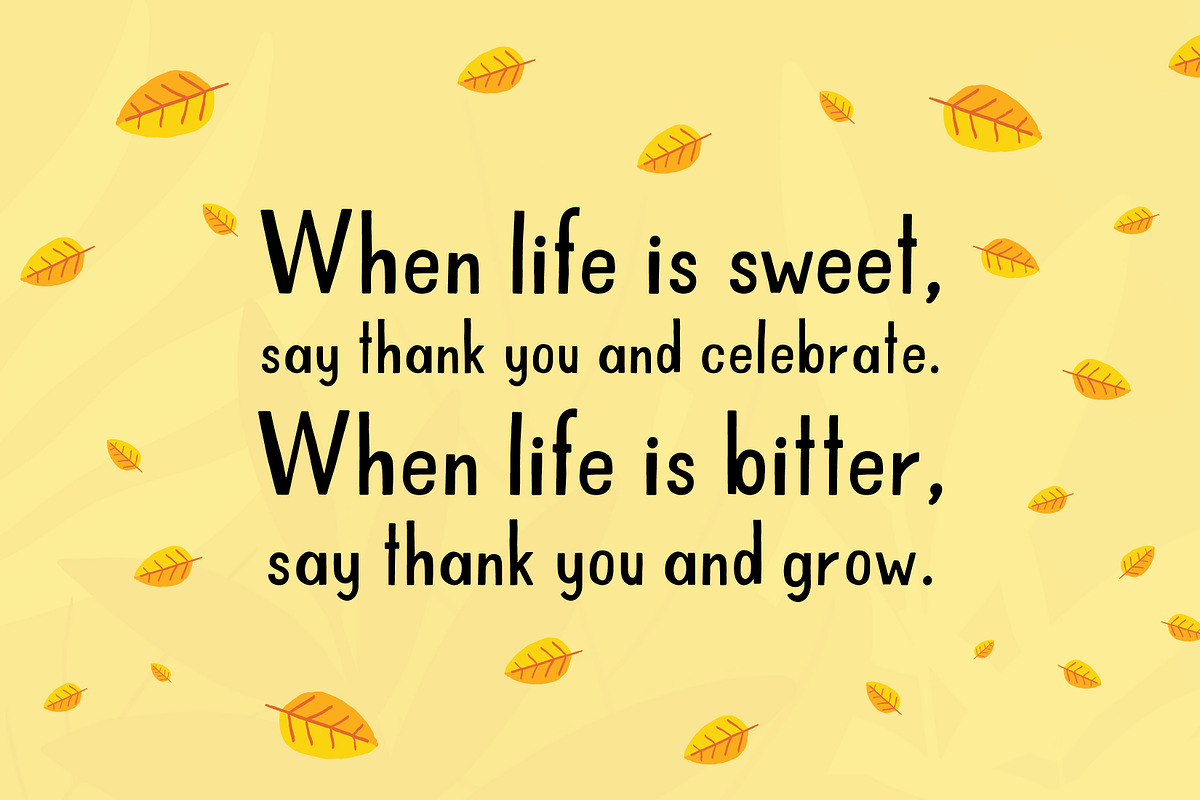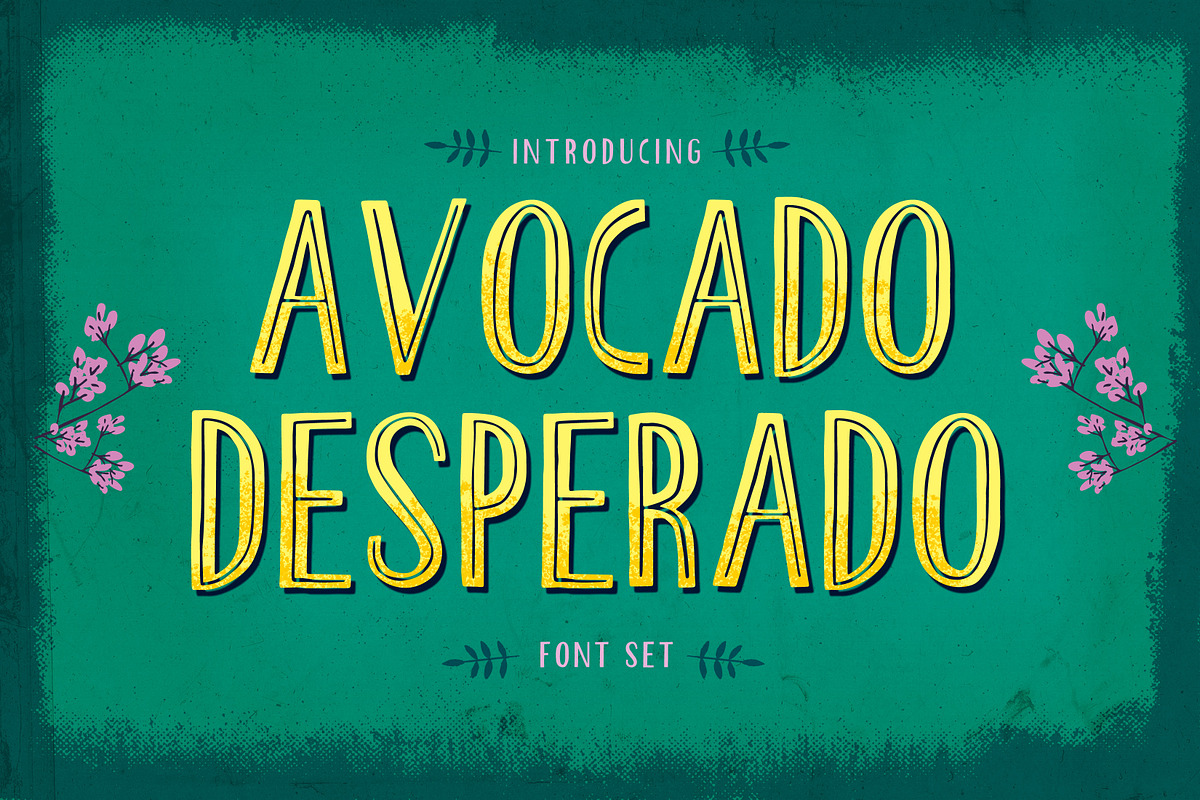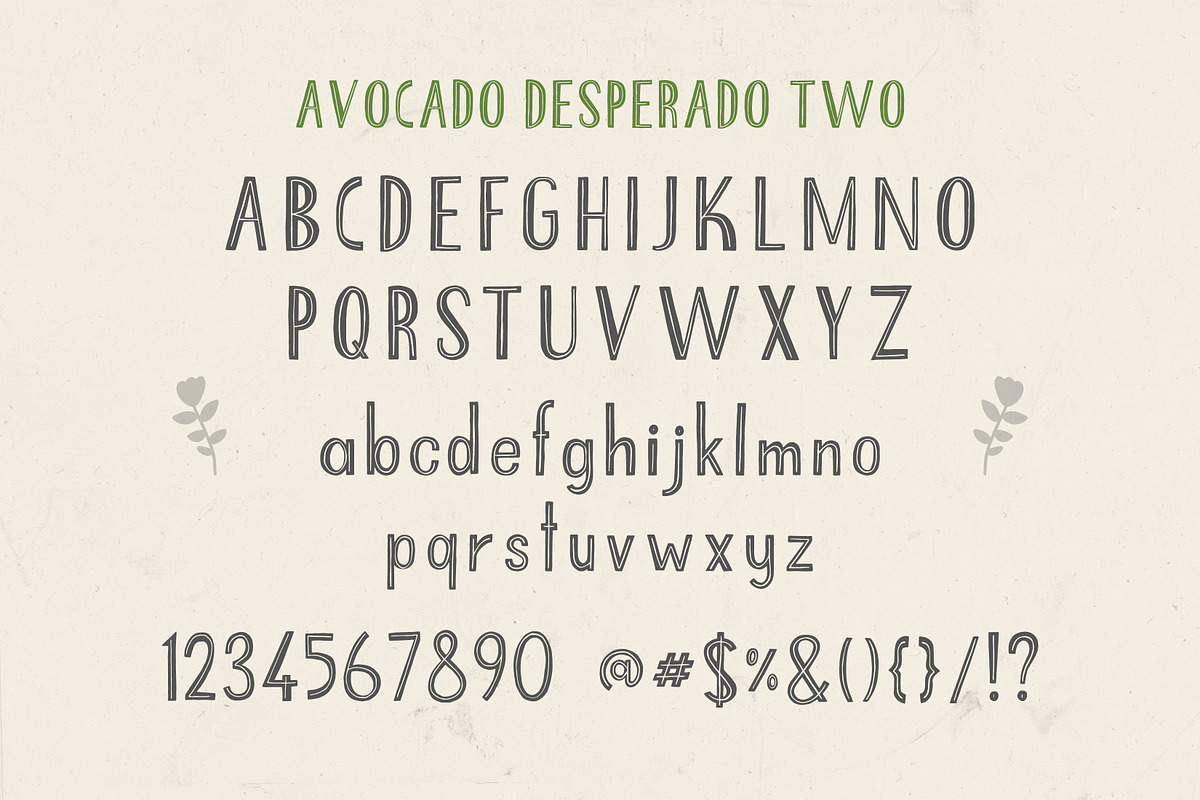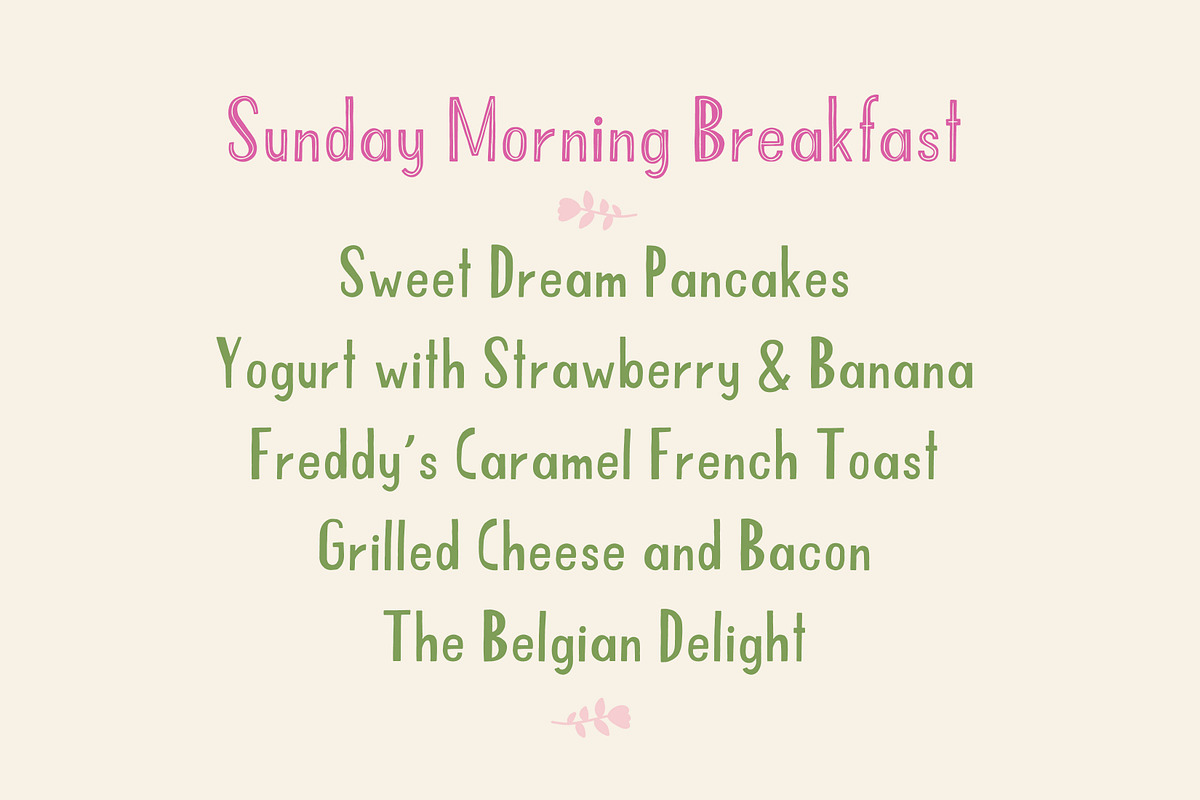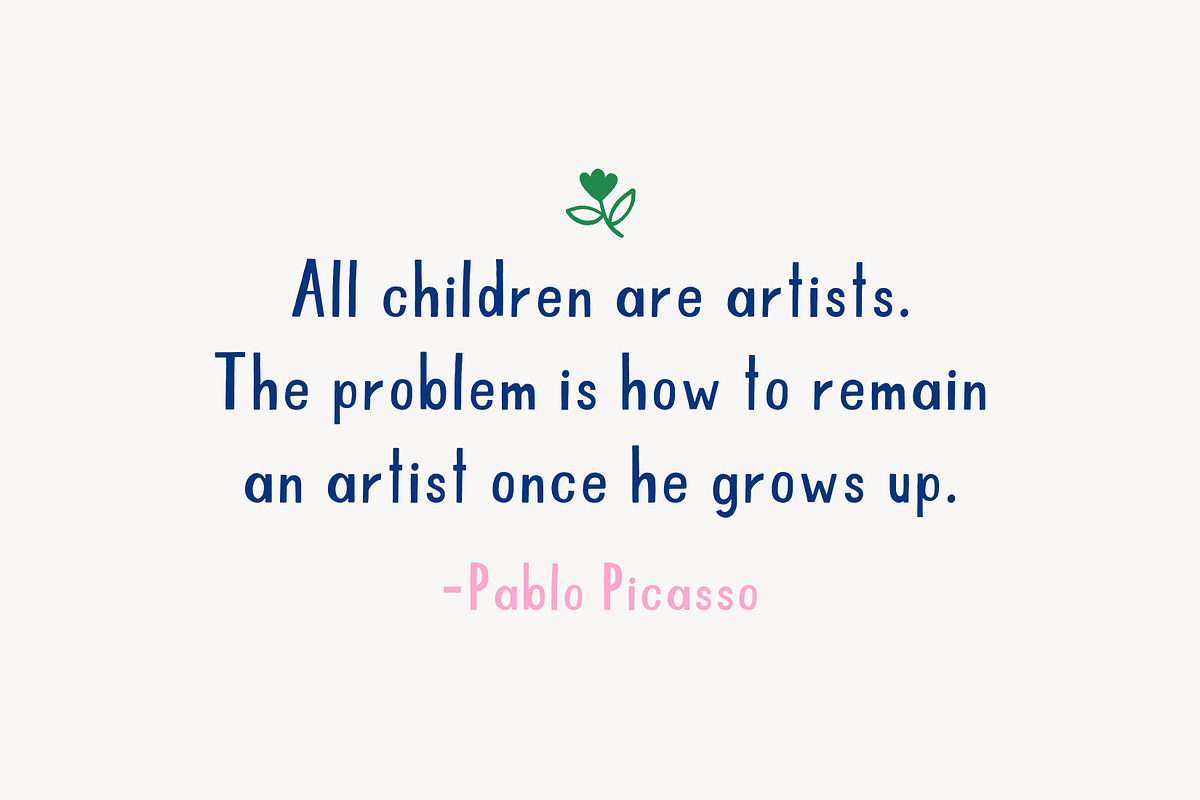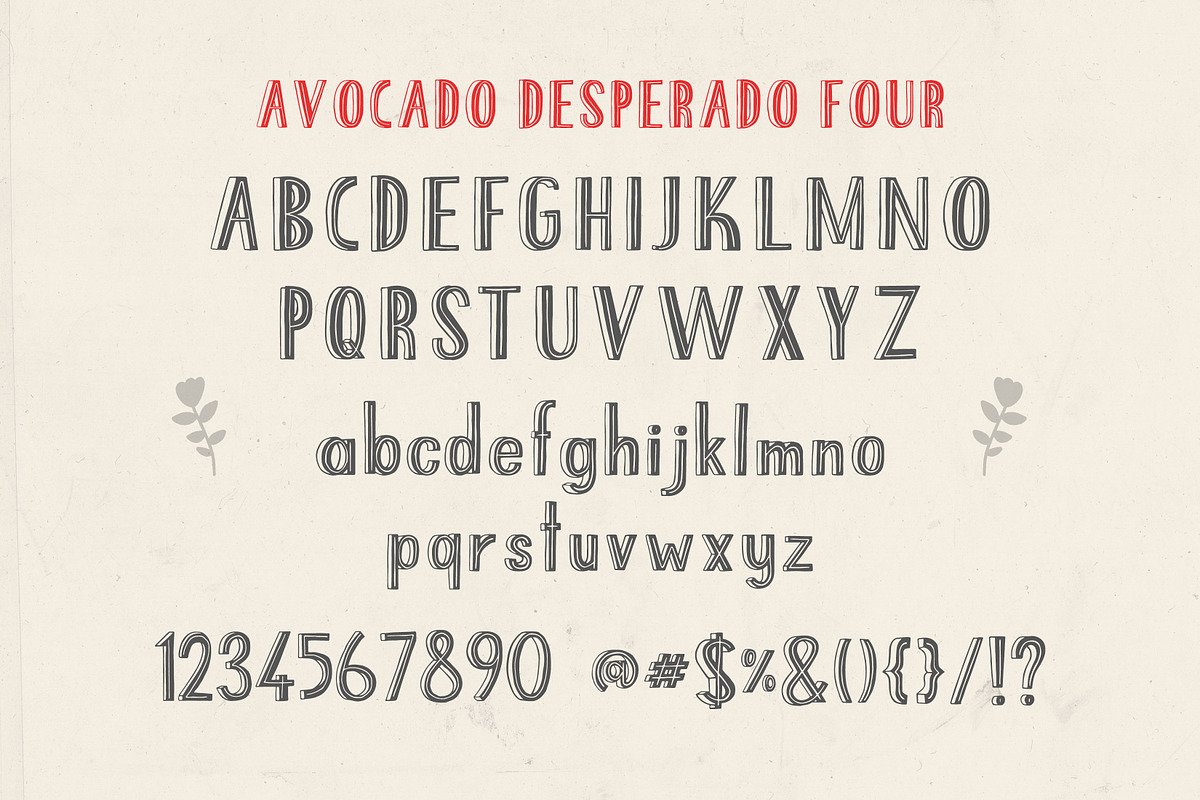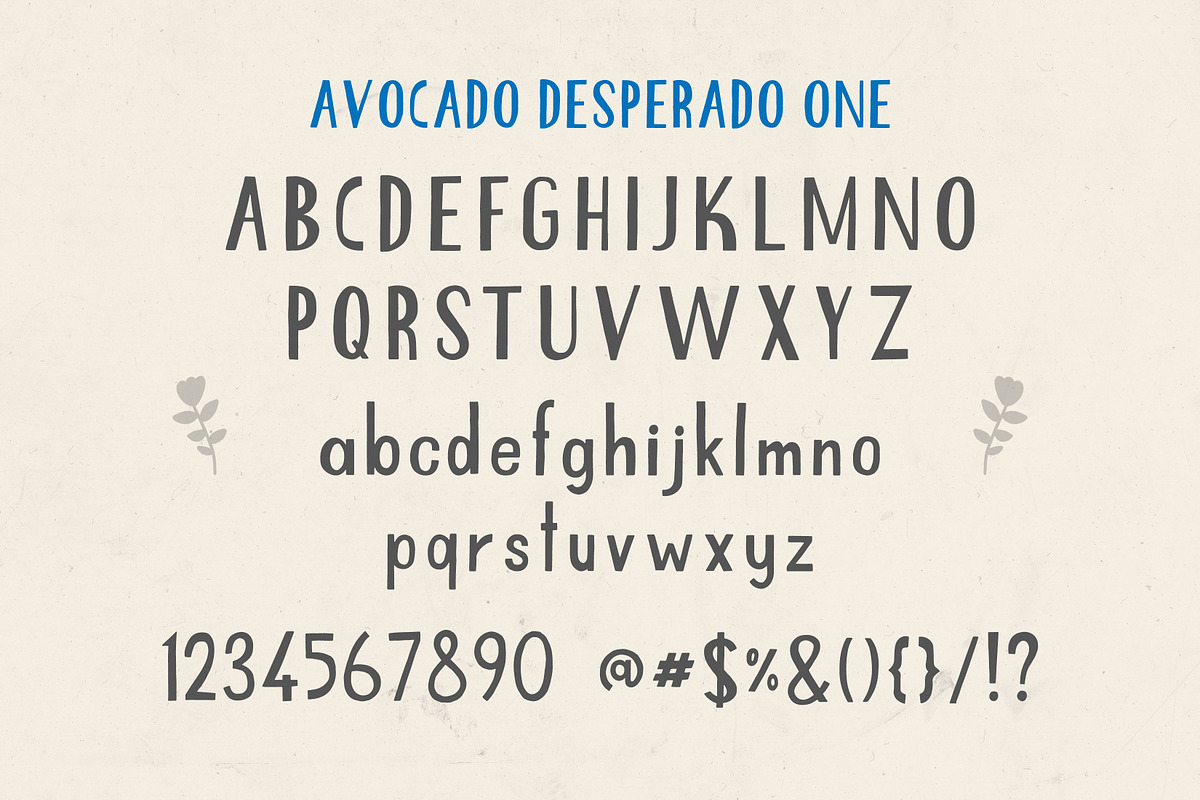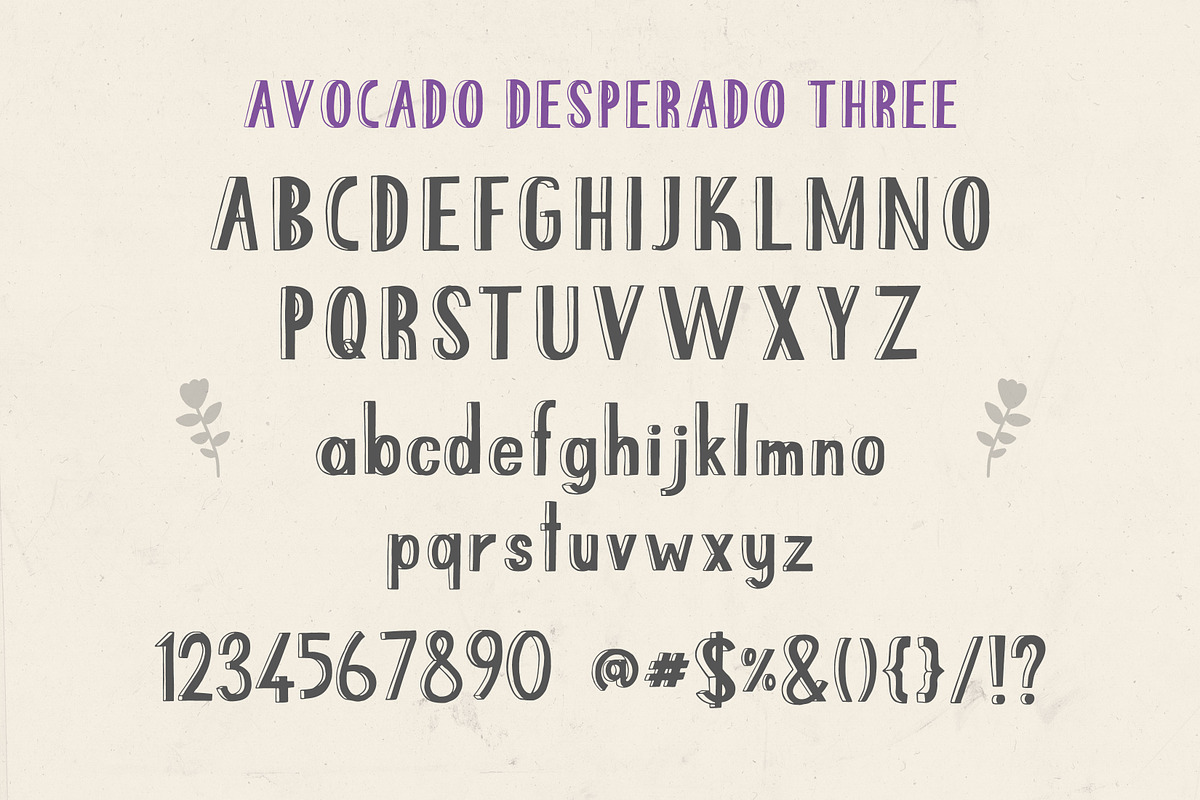
Avocado Desperado Font Set
Avocado Desperado font set includes 4 fonts. This set would be perfect for desert and food menus, bakery branding, children books, apparel and so much more.